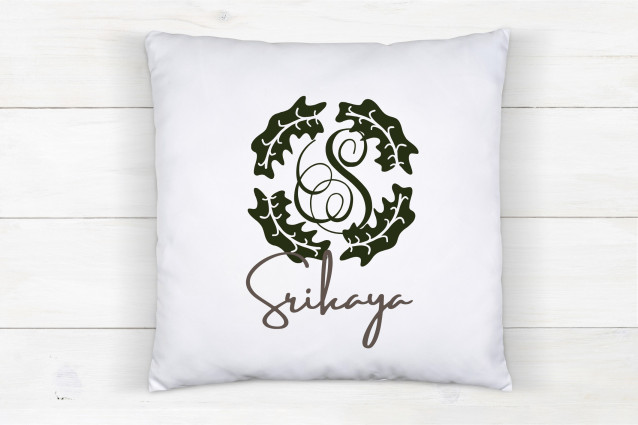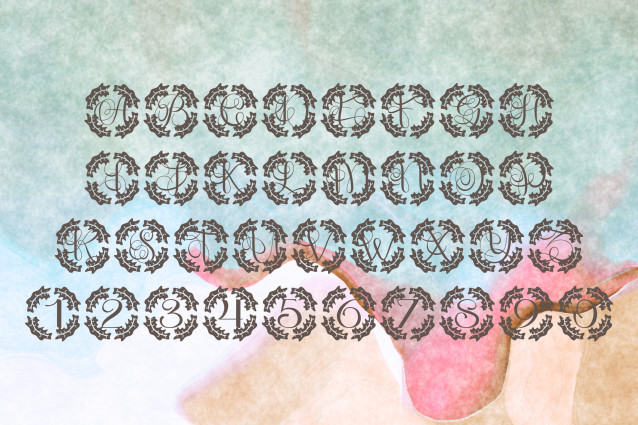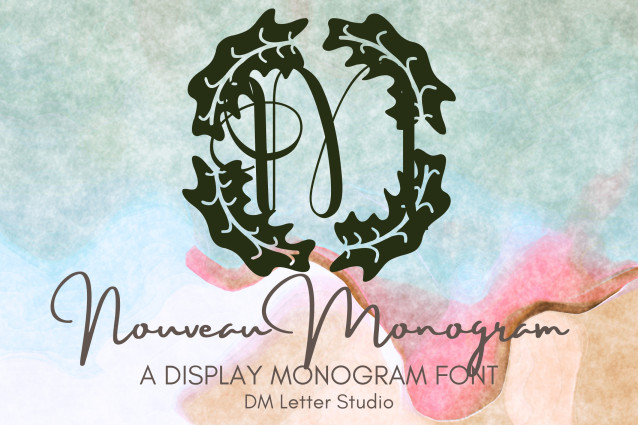
Nouveau Monogram Font
Nouveau Monogram Font is an elegant serif monogram font inspired by the bold lines and refined geometry of the Art Deco era. With its sophisticated styling and timeless charm, this font is perfect for creating monograms that feel both classic and modern. Each uppercase letter is designed with subtle decorative touches, evoking the glamour of the 1920s while remaining versatile enough for contemporary design projects.
Ideal for weddings, luxury branding, boutique logos, packaging, signage, and personalized stationery, Nouveau Monogram brings a sense of prestige to every project. Its structured forms ensure readability and balance, while the decorative accents make each letter stand out as a piece of design in itself. Whether you’re crafting a wedding invitation, designing a boutique identity, or adding initials to custom merchandise, this font gives your work a polished and upscale finish.
The unique combination of Art Deco elegance and timeless serif structure makes Nouveau Monogram a versatile choice for both vintage-inspired and modern minimalist design aesthetics. It adapts beautifully to wedding stationery, luxury packaging, event signage, and logo design, ensuring your creative work always looks stylish and memorable.